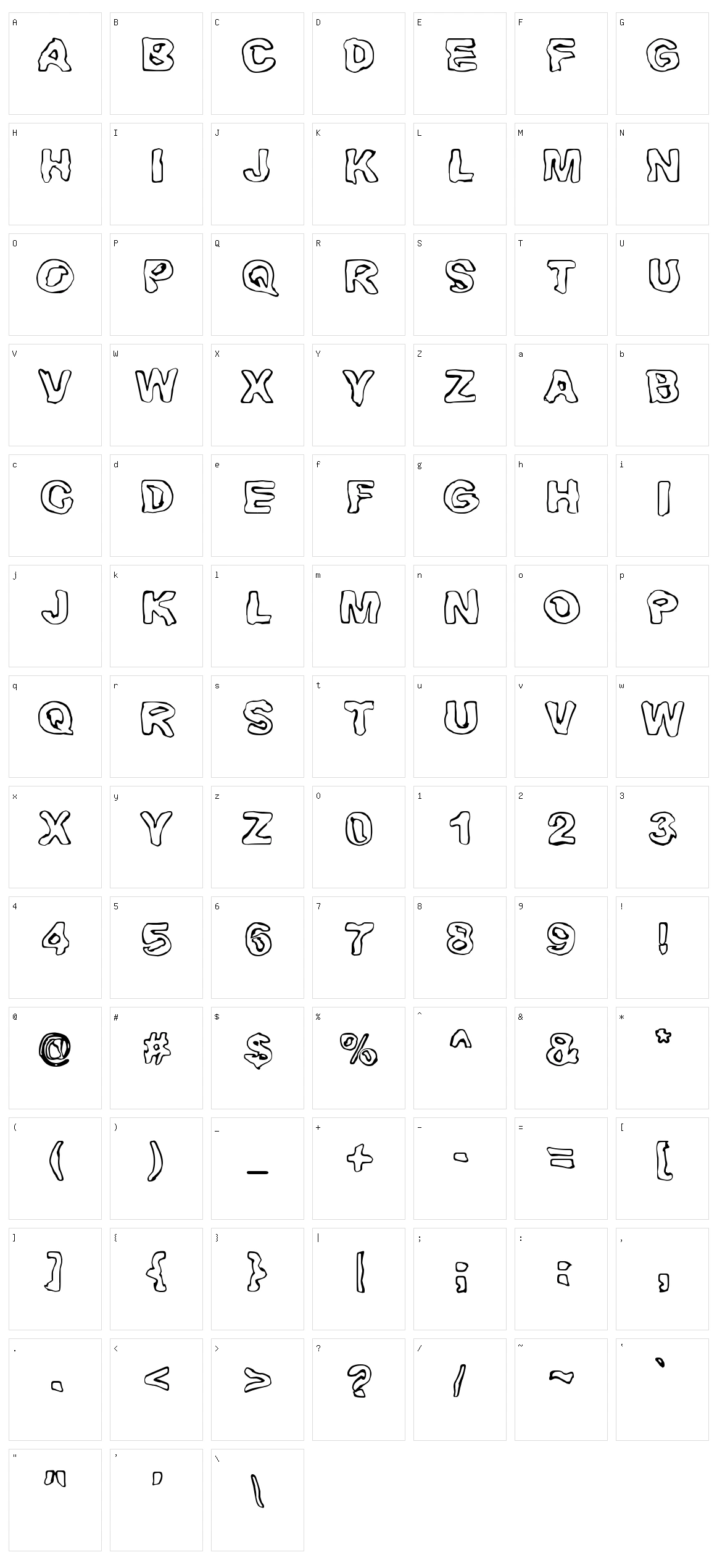
The free font Huhtikuu is carefully designed by junkohanhero, showcasing a thoughtful balance of creativity and usability and falls under the Eroded font style. When you download the ZIP file, it contains only 56.12 KB of font files, making it lightweight and quick to download. Please review the license details below to understand permitted usage and distribution rights. If license information is not available, we recommend using this font for personal projects only or contacting the author directly for commercial usage permissions.